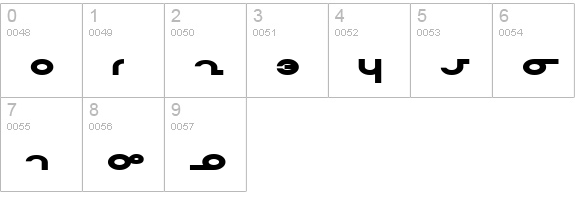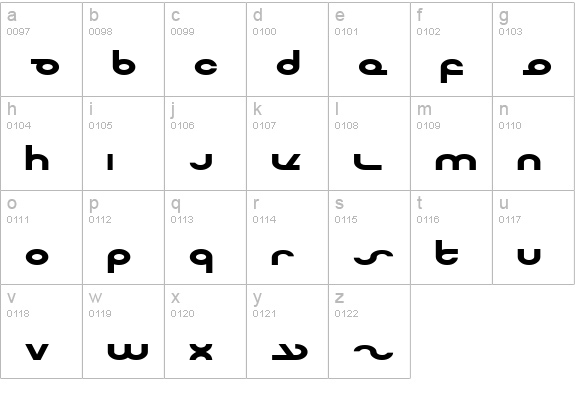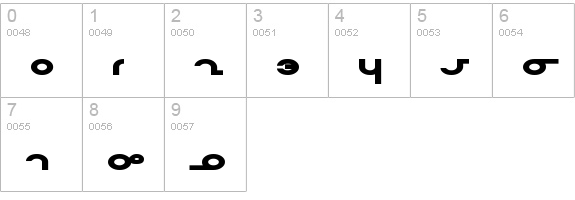
Masterdom Exp Bold is a strong, high-contrast variant in the Masterdom typeface family \xE2\x80\x94 well suited to headlines, attention-grabbing titles, and strong calls-to-action.
Masterdom Exp Bold is a striking and versatile display font that commands attention with its bold and powerful presence. Its sleek lines and elegant curves exude a sense of sophistication and modernity, making it perfect for a wide range of design projects. Whether used for logos, headings, posters, or branding materials, this font effortlessly conveys a sense of authority and style. The best part? Masterdom Exp Bold is available for free download at FontsMarket.com, allowing designers and creatives to easily access this premium-quality typeface without any cost. With its unique combination of strength and elegance, Masterdom Exp Bold is sure to make a bold statement in any design project.